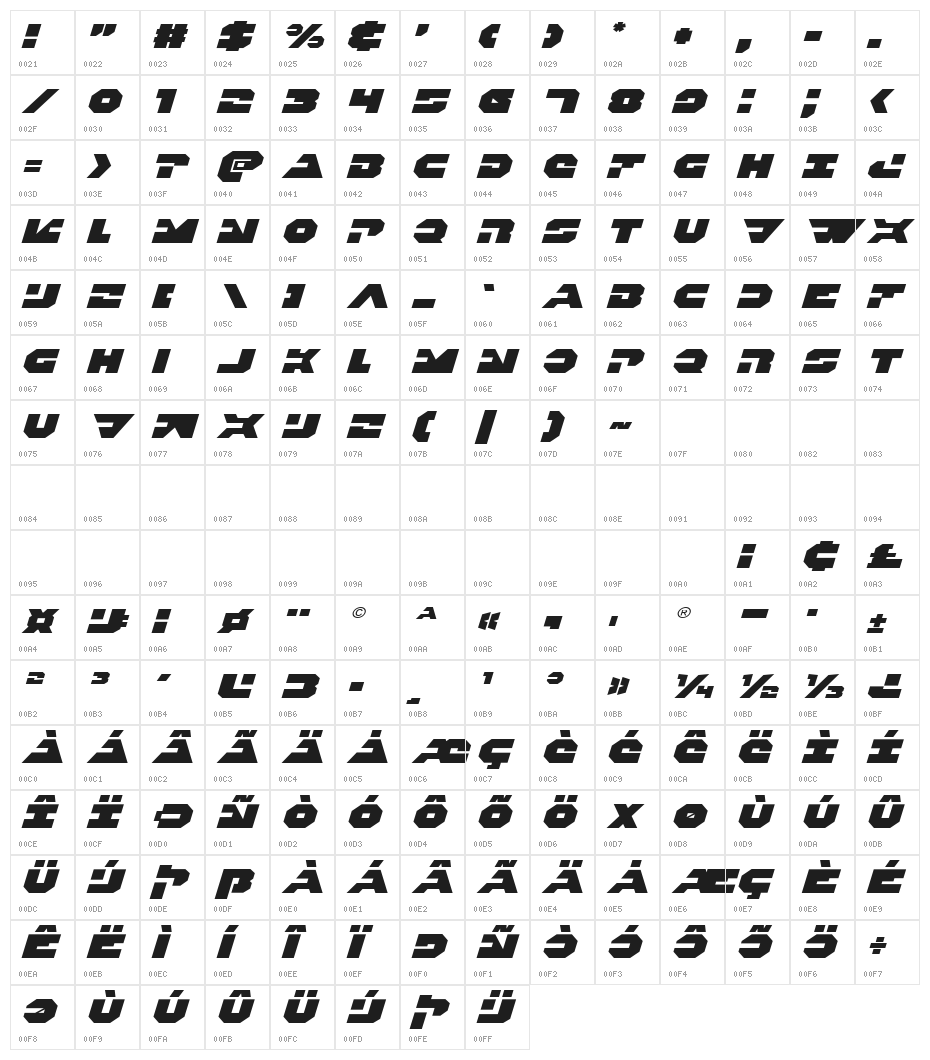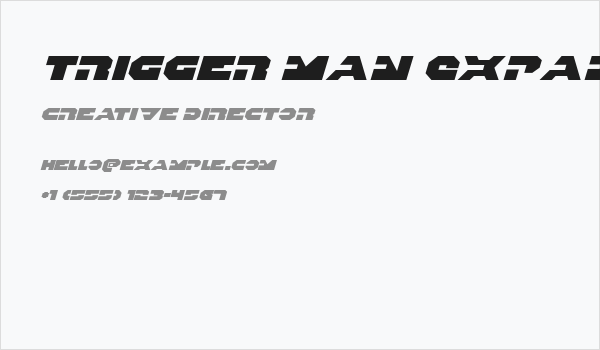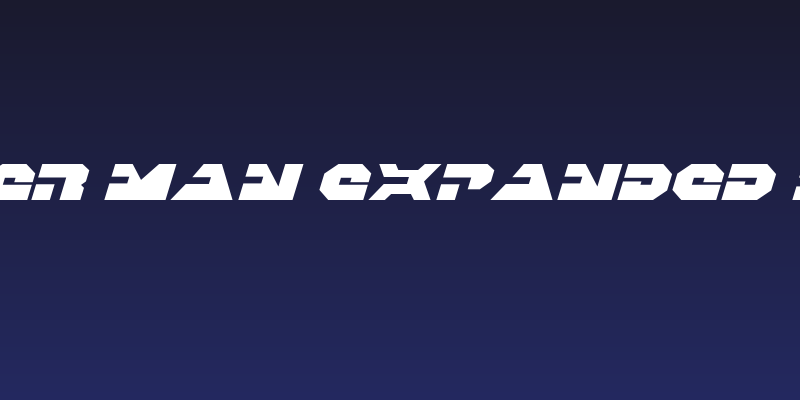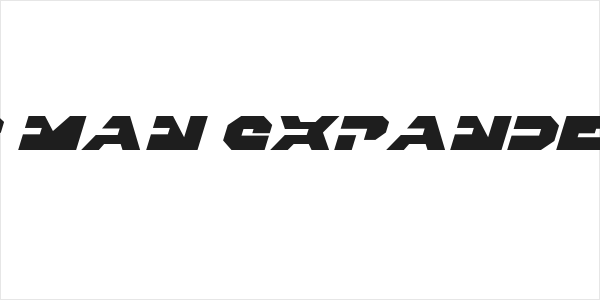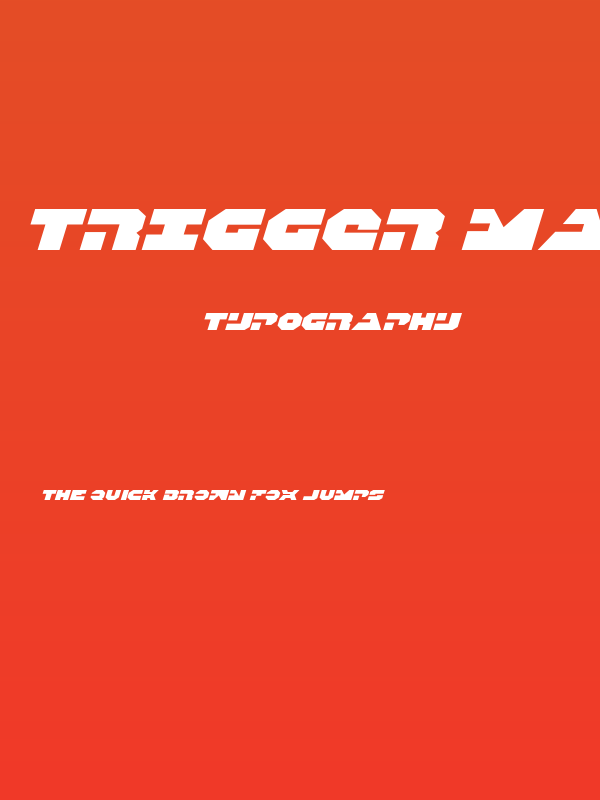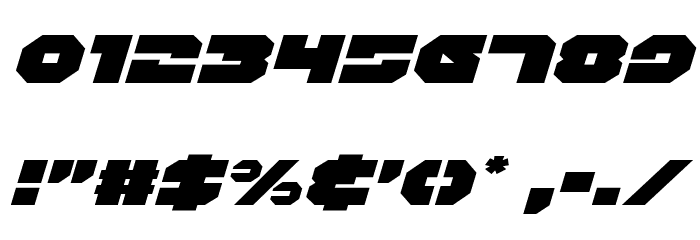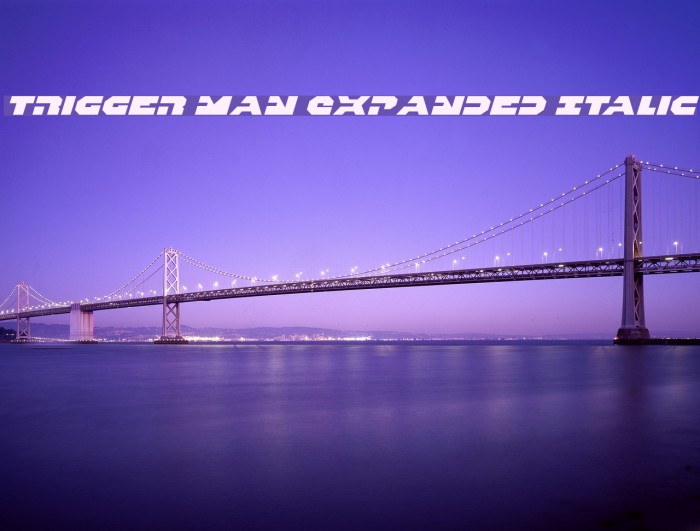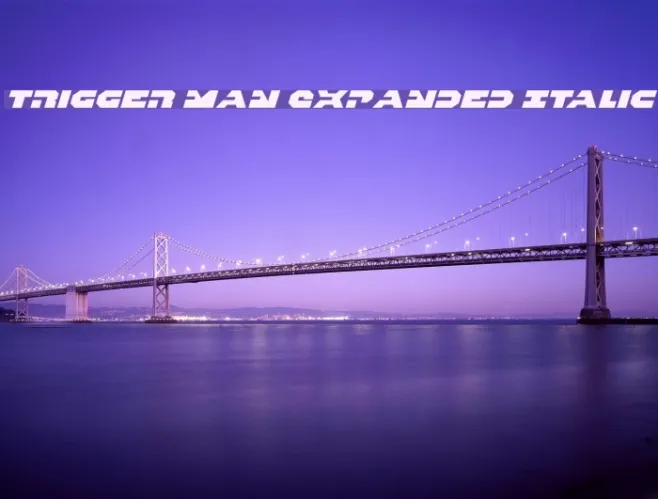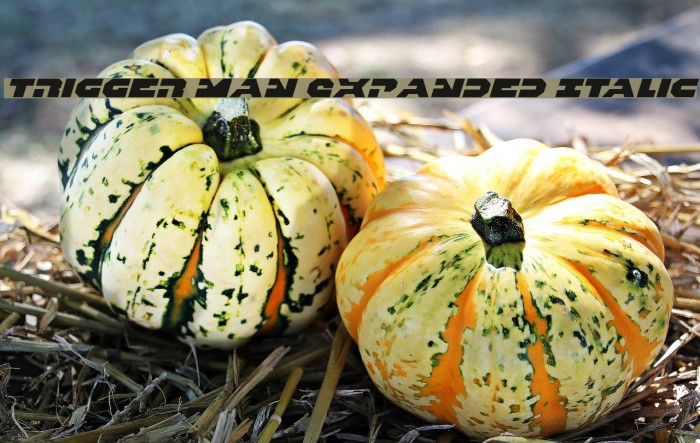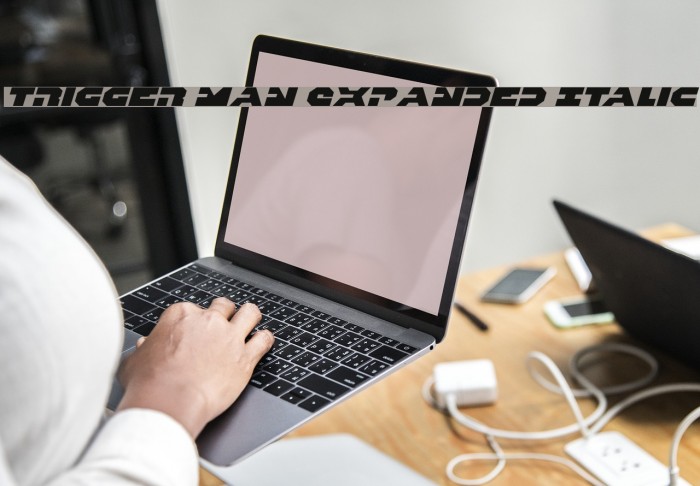
Trigger Man Expanded Italic Font
Trigger Man Expanded Italic Description
This font features a bold, geometric design with sharp angles and a futuristic aesthetic. The characters are heavily stylized, with a distinct slant that gives them a dynamic and aggressive appearance. The uppercase and lowercase letters maintain a consistent style, emphasizing angular cuts and a blocky structure. Numbers and special characters follow the same design principles, ensuring uniformity across all glyphs. The font's expanded width enhances its presence, making it ideal for impactful visual statements.
| Proposed Projects | Ideal for sci-fi themed projects, video game titles, posters, and branding that requires a strong, modern look. |